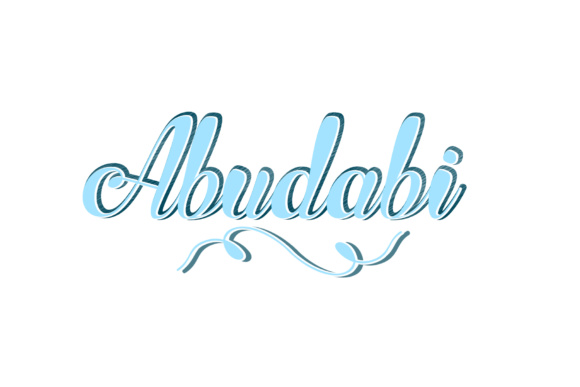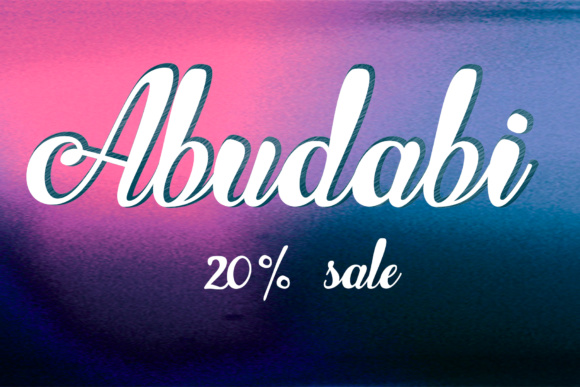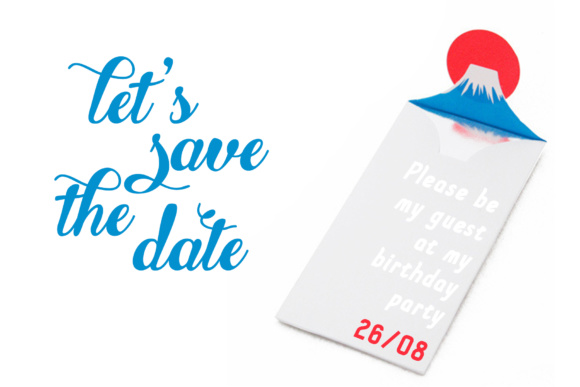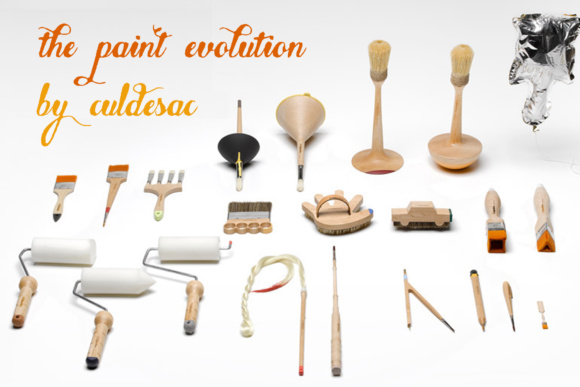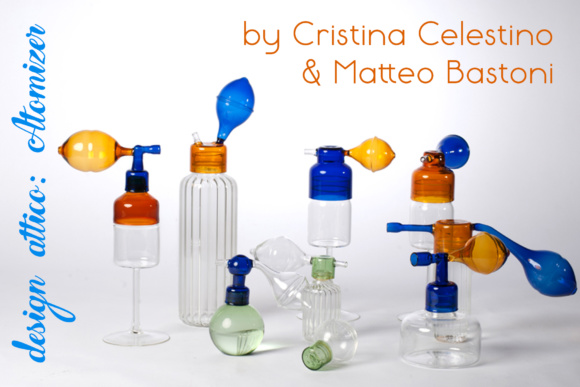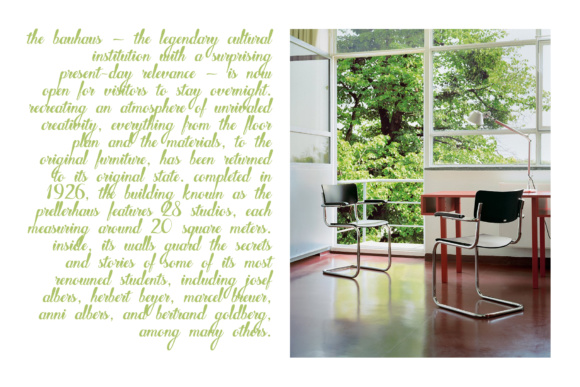
Abudabi Font
About Abudabi Font
Abudabi is a connected script typeface that includes 3 font styles:
• REGULAR for signs and basic text
• BOLD for titles and highlights
• STONE for single words or backgrounds